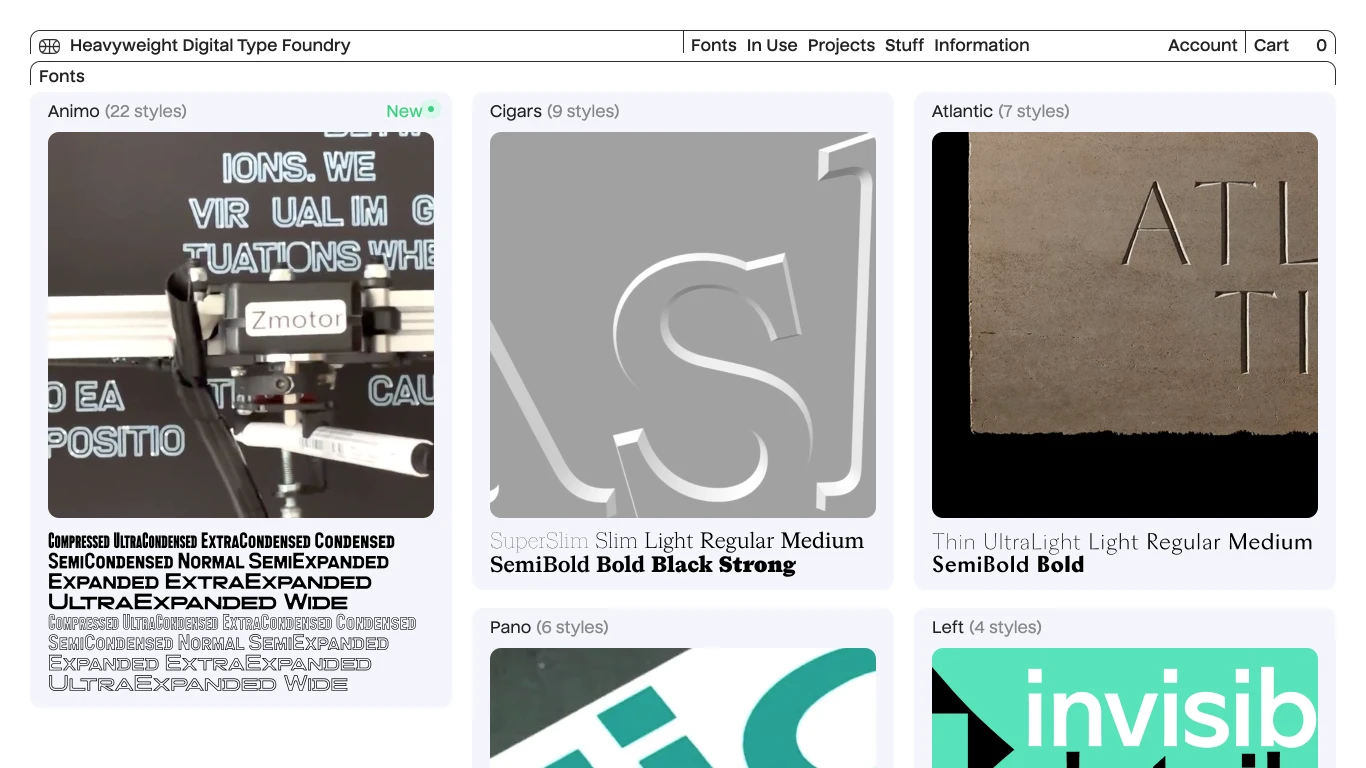
Heavyweight
Czechia
Heavyweight is a Prague-based digital type foundry established in 2013 by Filip Matějíček and Jan Horčík. The name reflects their focus on simplicity, precision, and versatile design. Notable typefaces include Topol, their inaugural font inspired by poplar trees; Atlantic, known for its moderate x-height and calligraphic design; and Pano, a distinctive typeface recognized by Semplice. Heavyweight's fonts have been utilized by prominent institutions and brands, including The New York Times, Walker Art Center, Whitney Museum, Nike, MoMA (in collaboration with Hort Berlin), and Vogue. ​